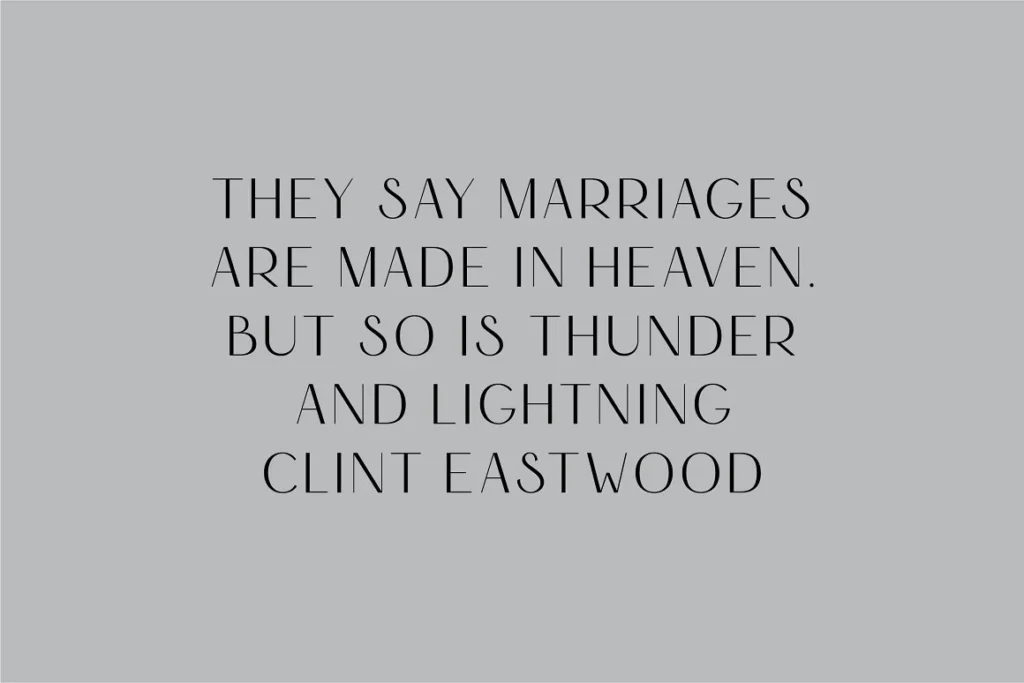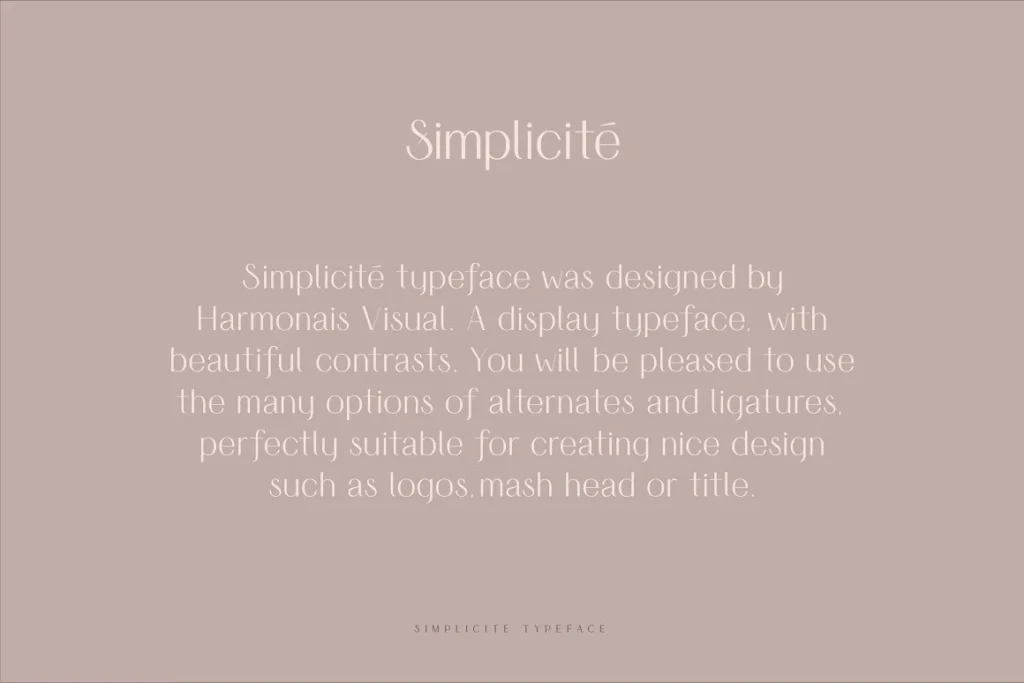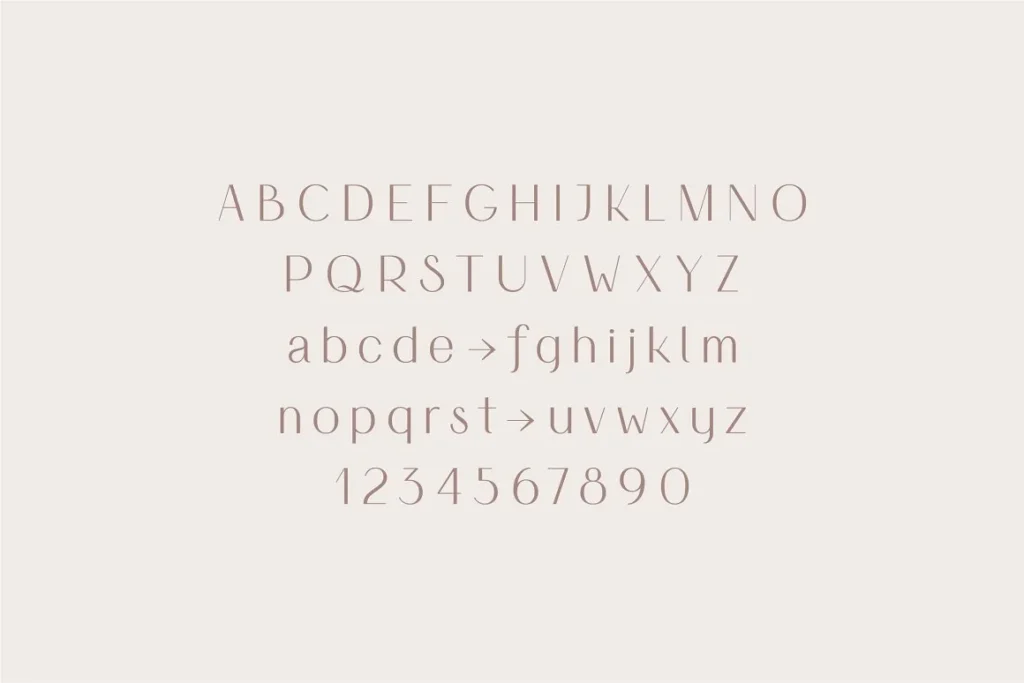
Welcome to our latest design exploration featuring Simplicite Elegant Typeface Sans Serif Font ! ✨ Dive into a world where minimalism meets sophistication as we unveil the beauty and versatility of this timeless font.
Perfect for everything from branding to web design, Simplicite effortlessly balances style with legibility, making it a must-have in every designer’s toolkit.